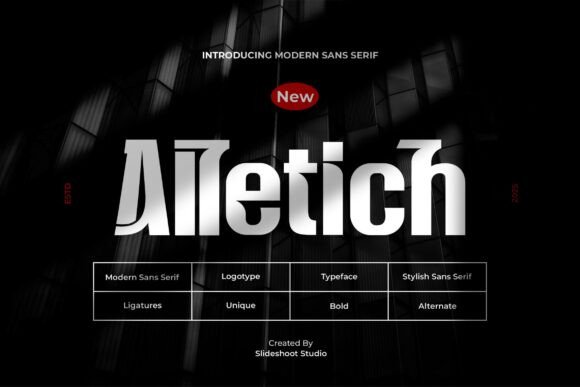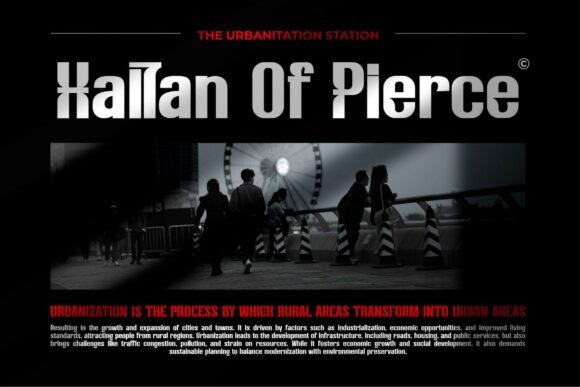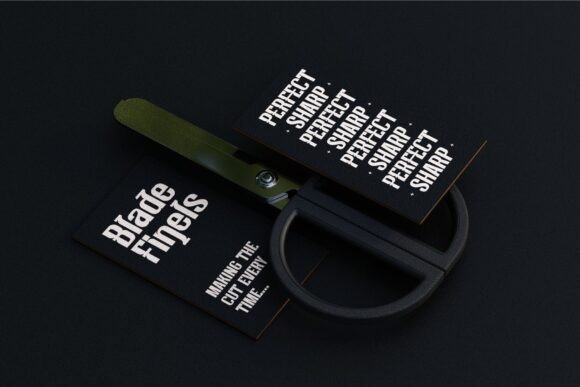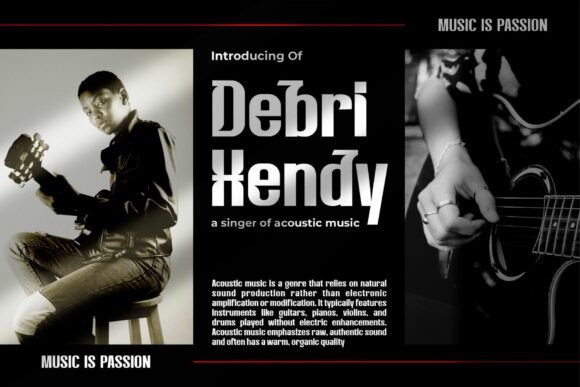
Alletich Font: Modern Sans Serif for Logo Design & Branding
About the Alletich Font
Introducing the Alletich Font, a beautifully crafted typeface designed to elevate your creative projects. Introducing Alletich, a sans serif font with an elegant and modern feel. It will be perfectly used for Branding, Logo Design, Lettering, Logotype, Clothing, posters, magazines, packaging, posters, shopping bags, t-shirts, book covers, photography, special events, and other design projects
Alletich Font Usage Examples
Alletich Font Example